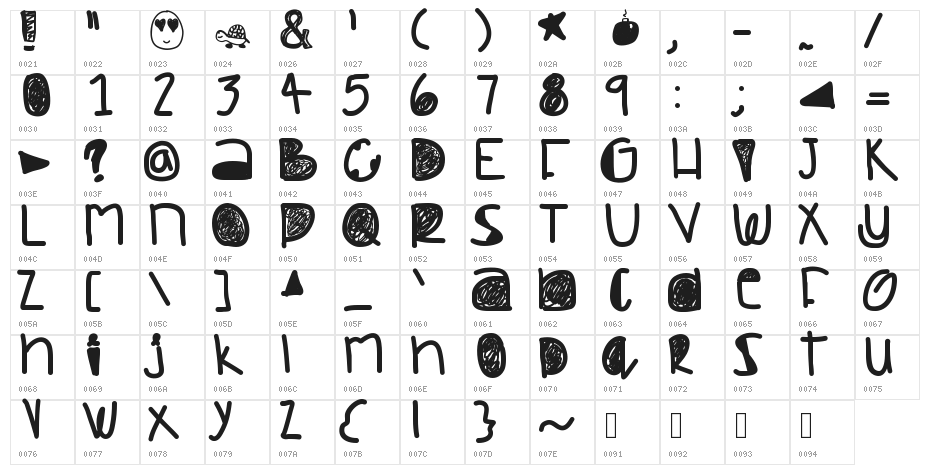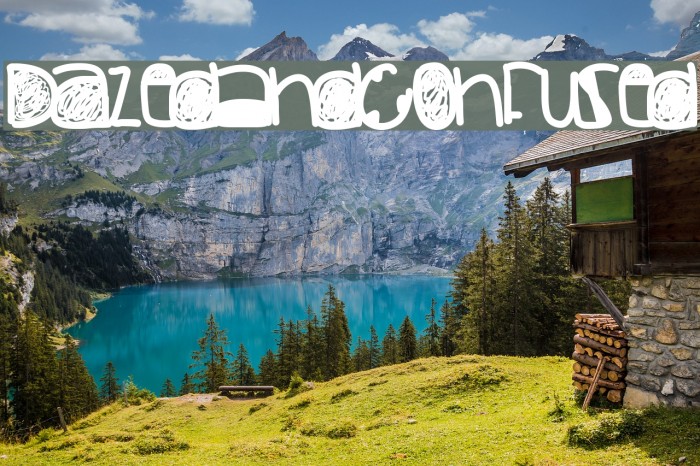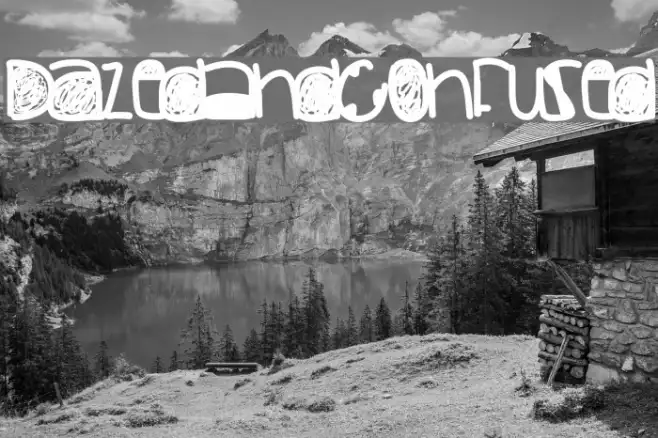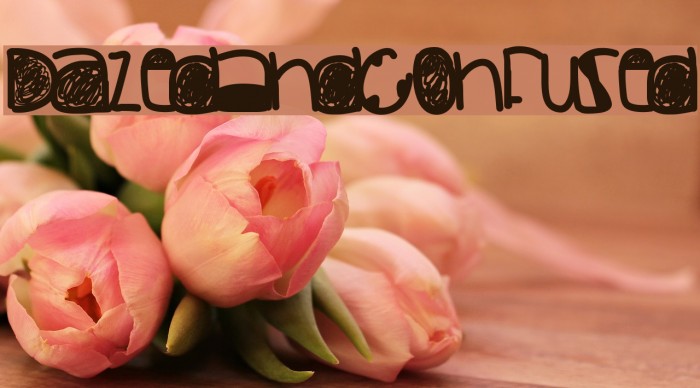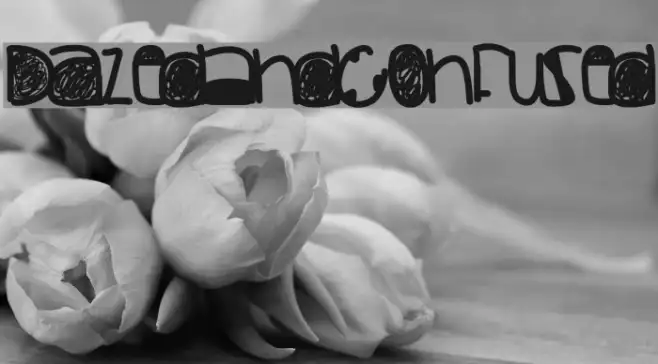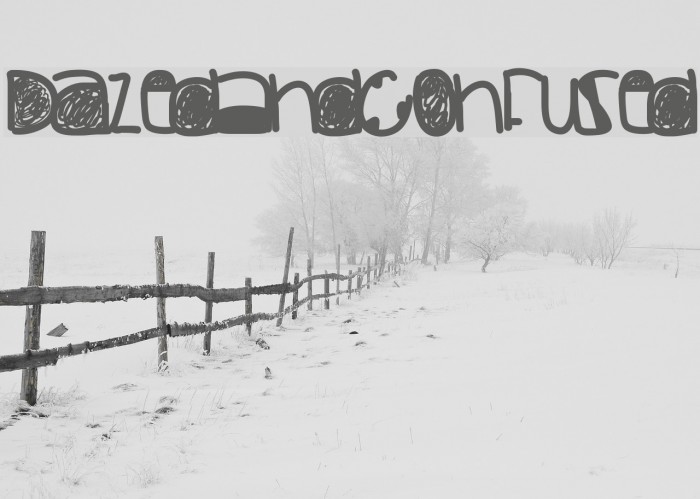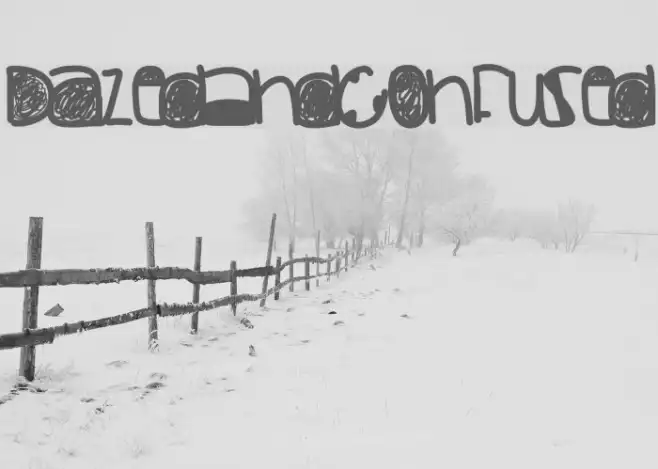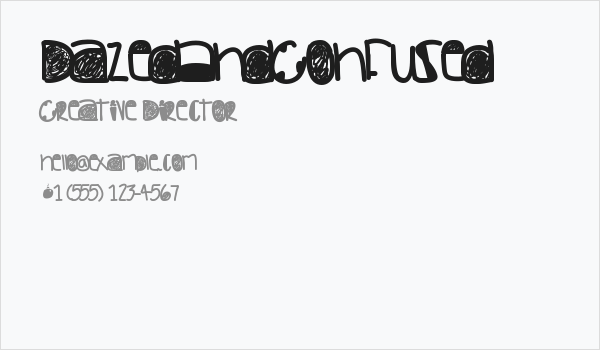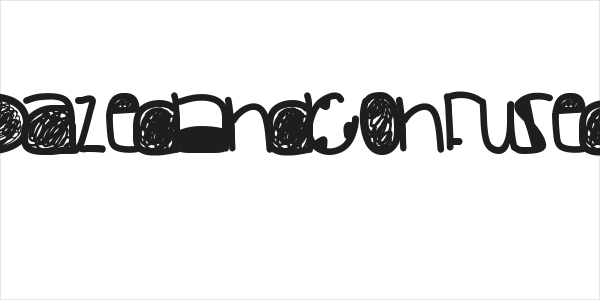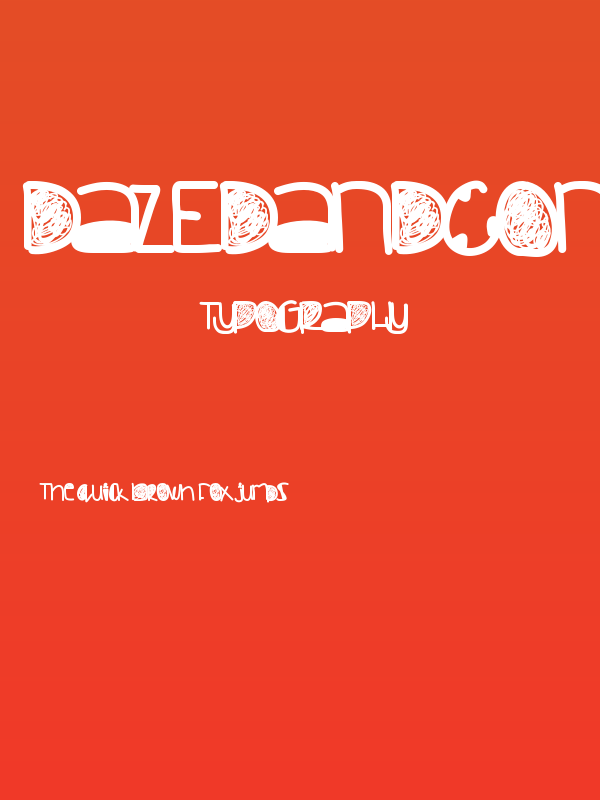
DazedAndConfused Font
DazedAndConfused Description
This font features a playful and whimsical design, characterized by its bold and rounded letterforms. The strokes are thick and consistent, giving it a cartoonish and informal appearance. The uppercase and lowercase letters maintain a consistent style, with some letters featuring unique embellishments that add to its quirky charm. The numbers are equally bold and maintain the playful aesthetic. Special characters are creatively designed, adding to the overall fun and casual vibe of the font. This font is ideal for projects that require a lighthearted and engaging touch.
| Proposed Projects | Ideal for children's books, comic strips, playful branding, and casual invitations. |